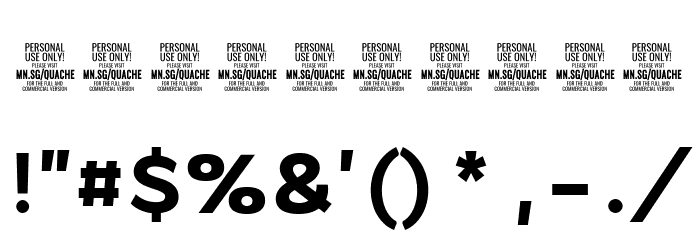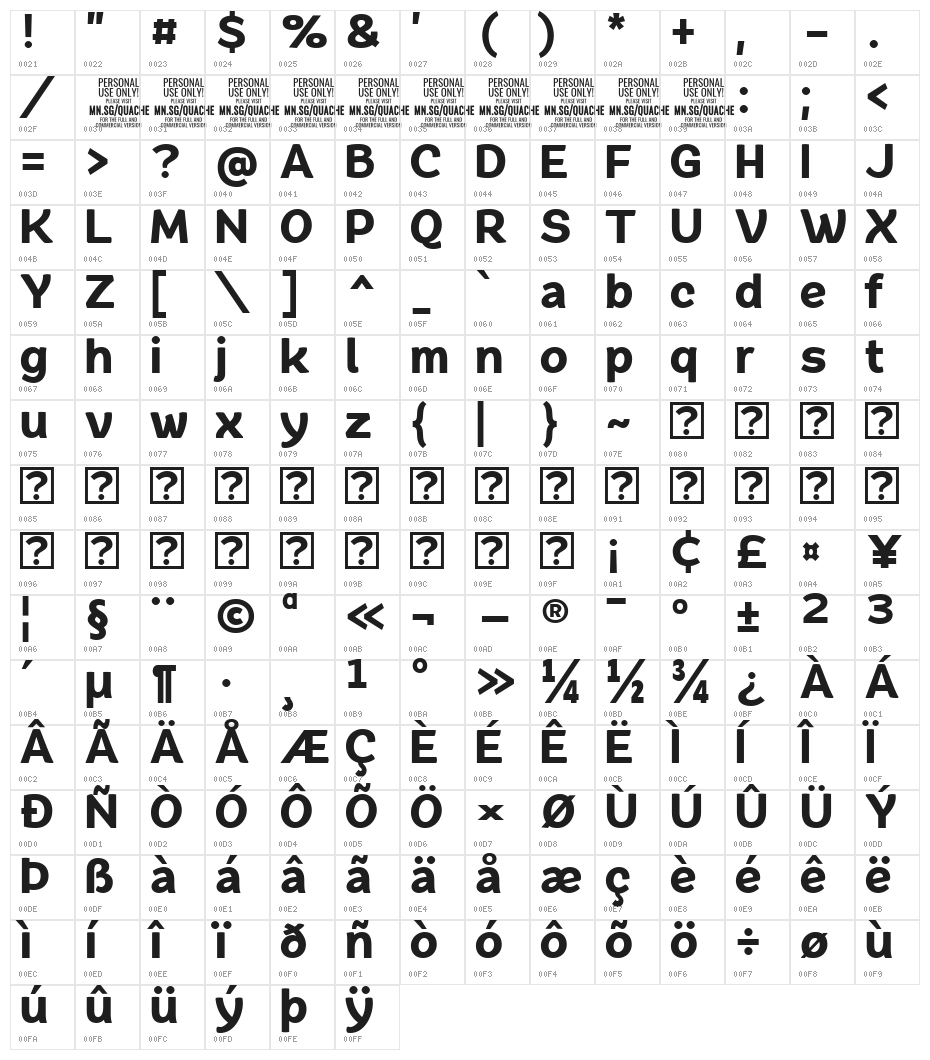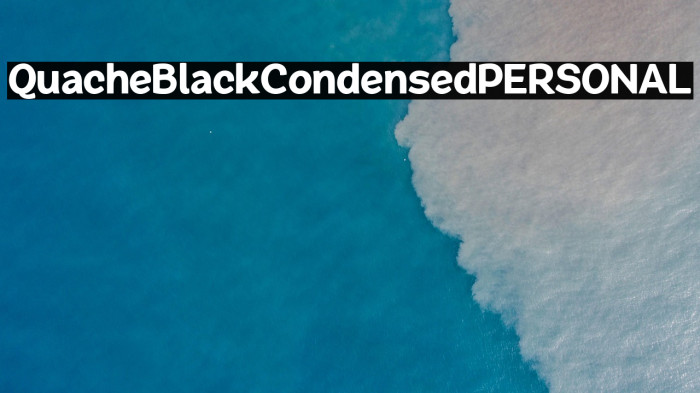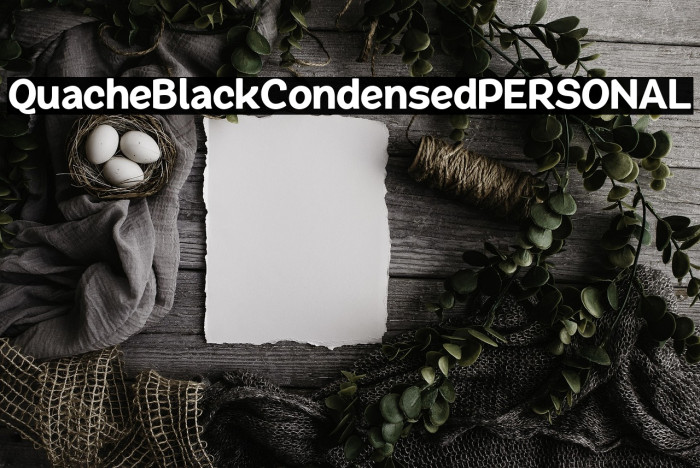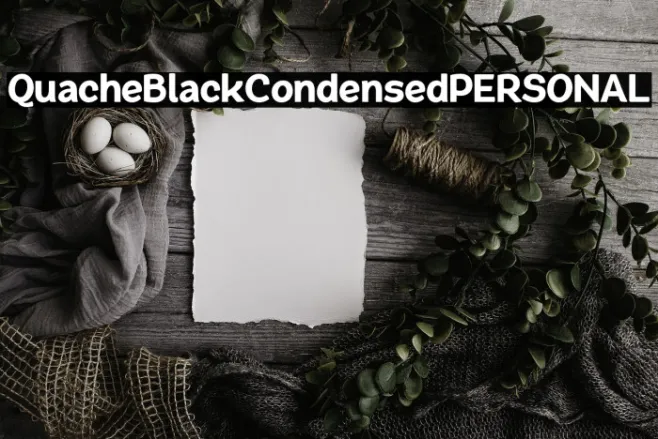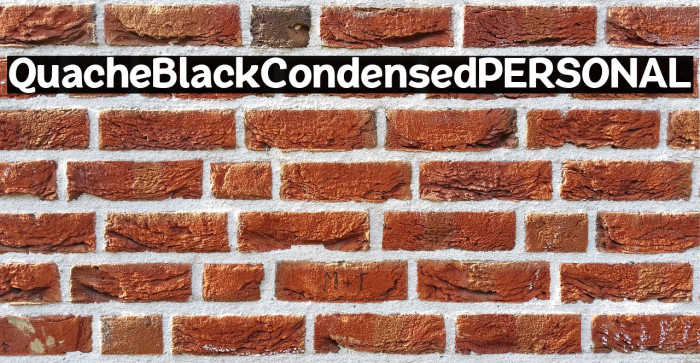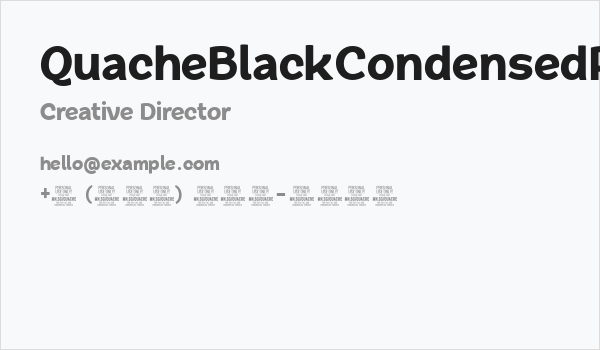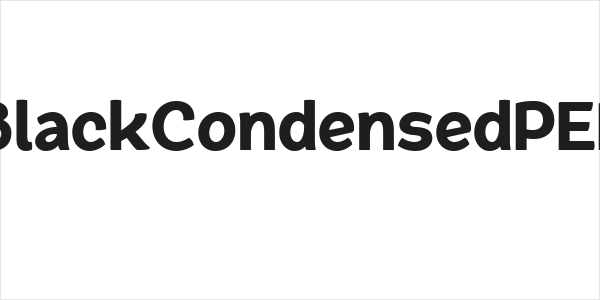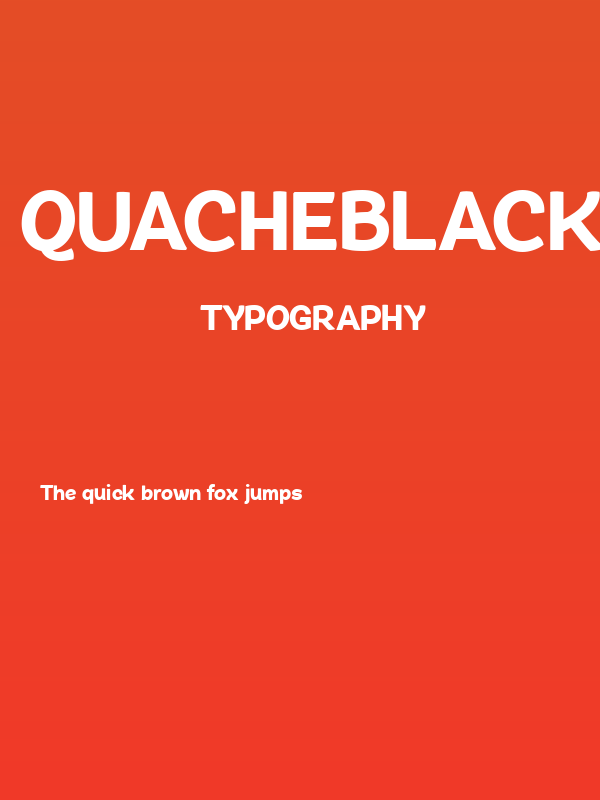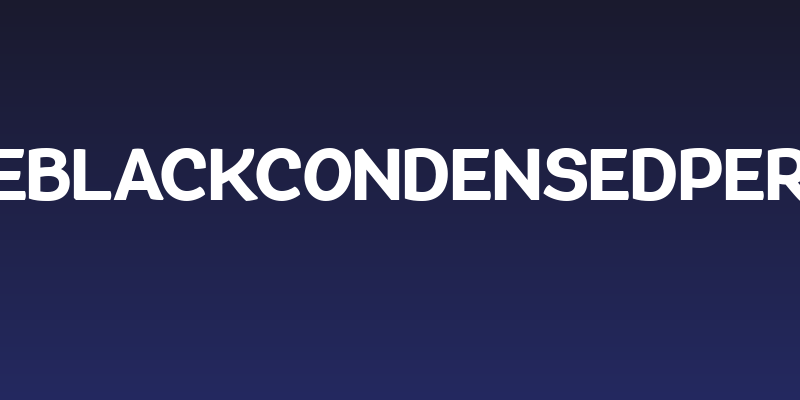
QuacheBlackCondensedPERSONAL Font
QuacheBlackCondensedPERSONAL Description
This font exhibits a bold and condensed style, characterized by thick strokes and a strong presence. The uppercase and lowercase letters maintain a consistent width, contributing to a uniform appearance. The design is modern and clean, with minimal contrast between thick and thin strokes, making it highly legible. The characters are tightly spaced, enhancing the compact and impactful look. This font includes a full set of uppercase and lowercase letters, numbers, and a variety of special characters, making it versatile for various design needs.
| Proposed Projects | Ideal for headlines, posters, branding, and advertising where a strong visual impact is desired. |